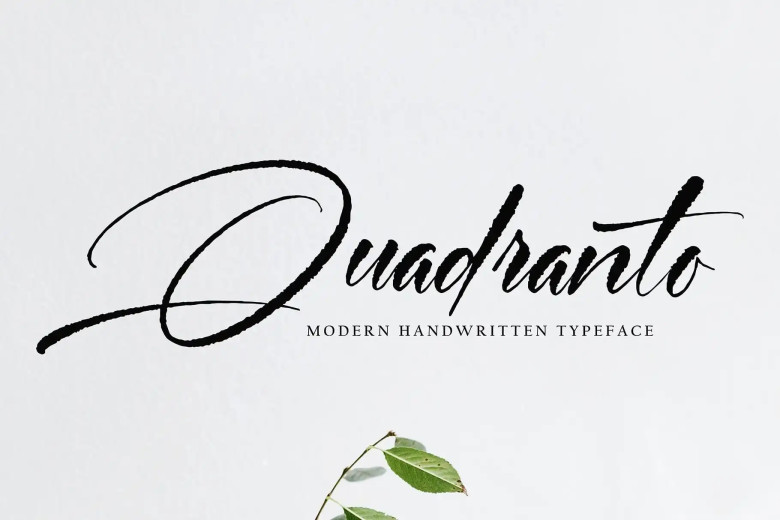
Quadranto Font
Quadranto is an inherently nice font to look at. It is suitable for a variety of projects such as quotes, logos, blog headers and posters to name a few. It’s also used in branding projects, letters, invitations and stationery environments.
Quadranto Handwritten Font